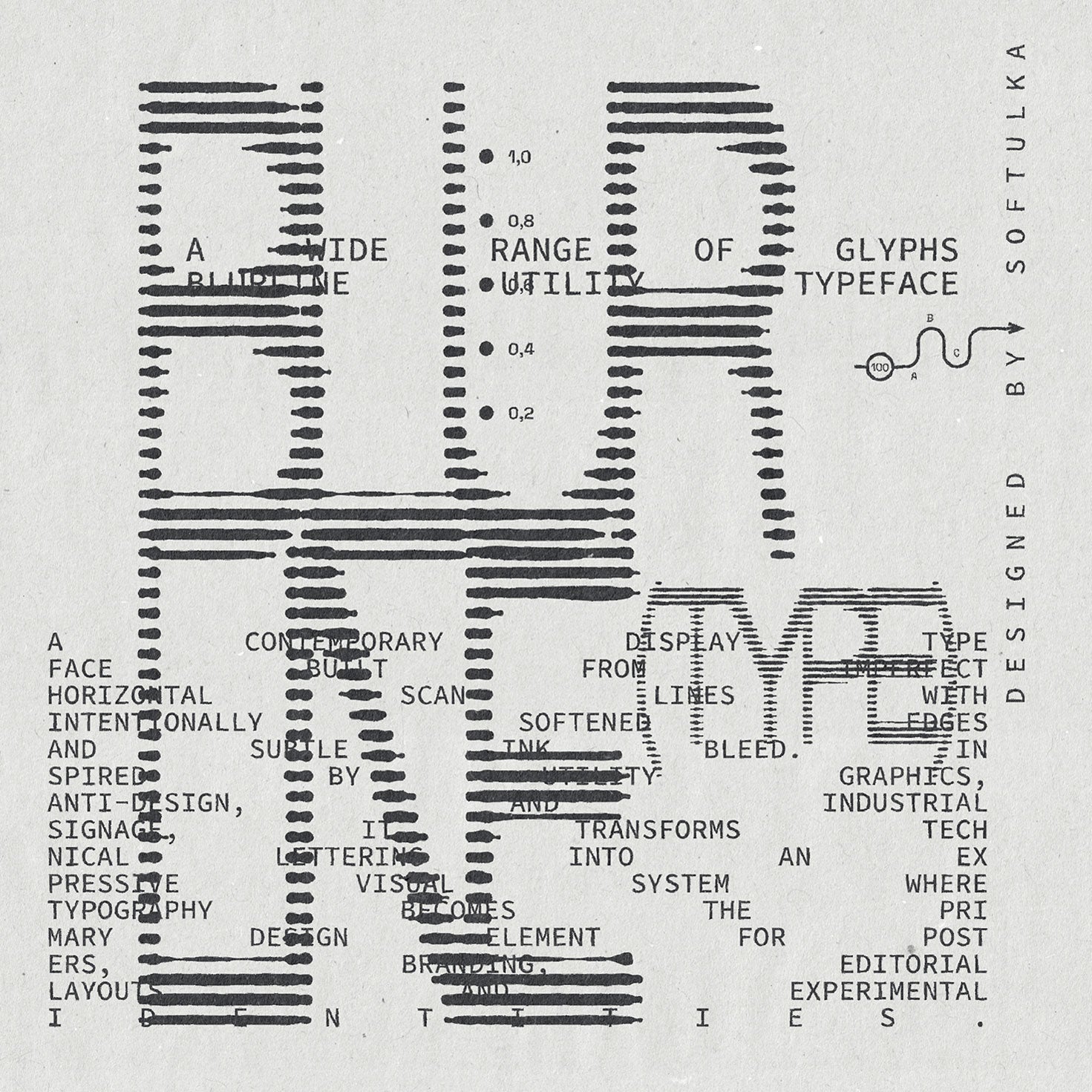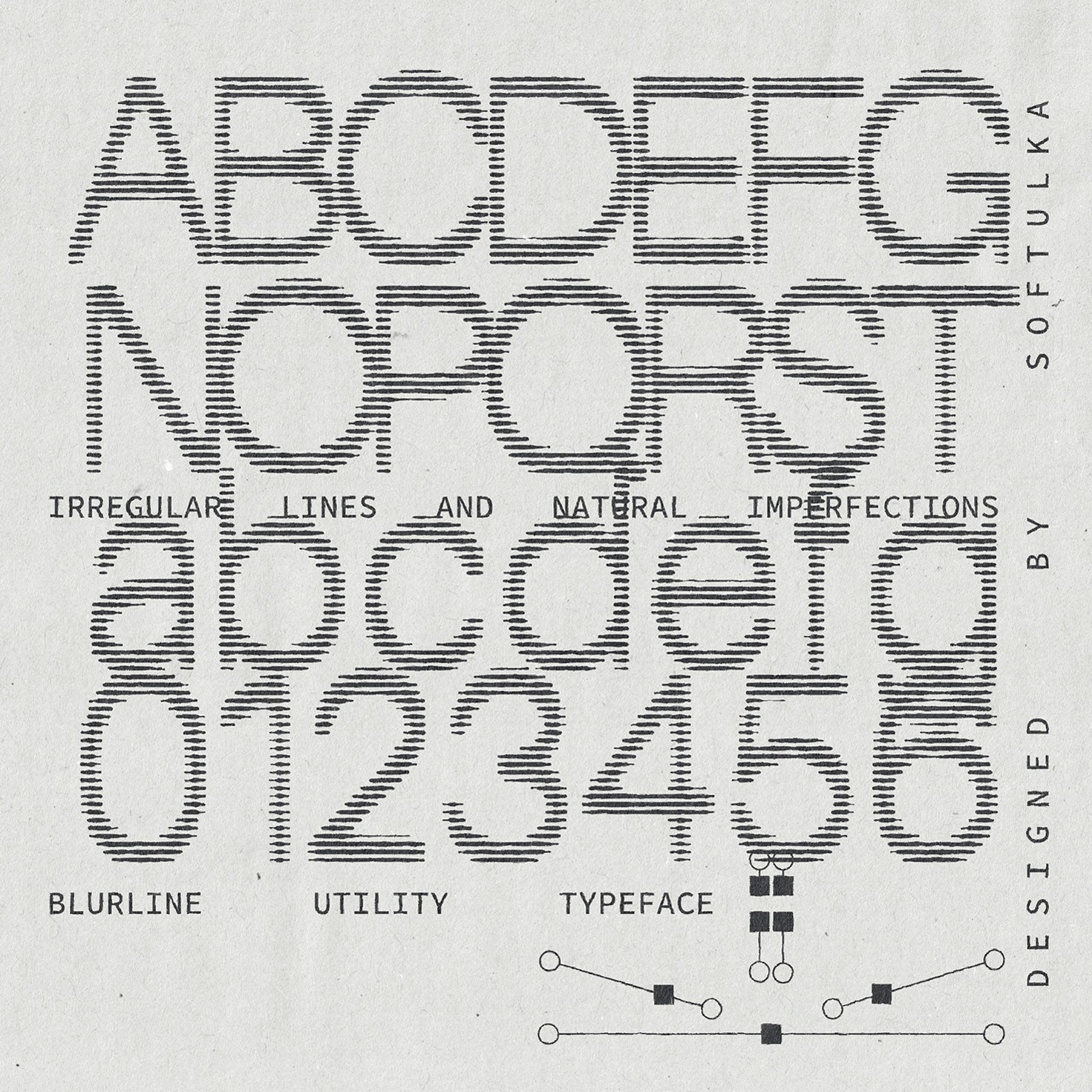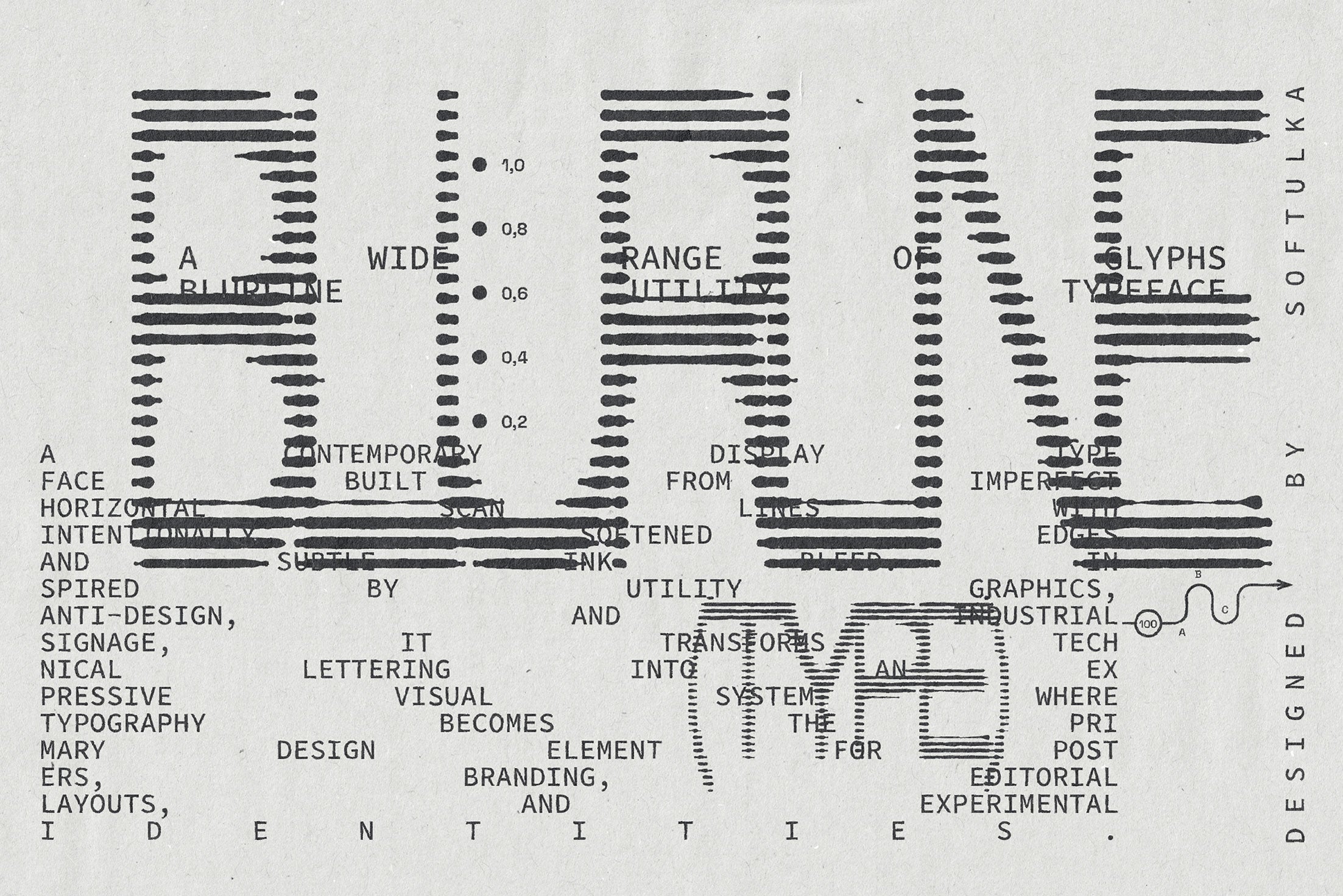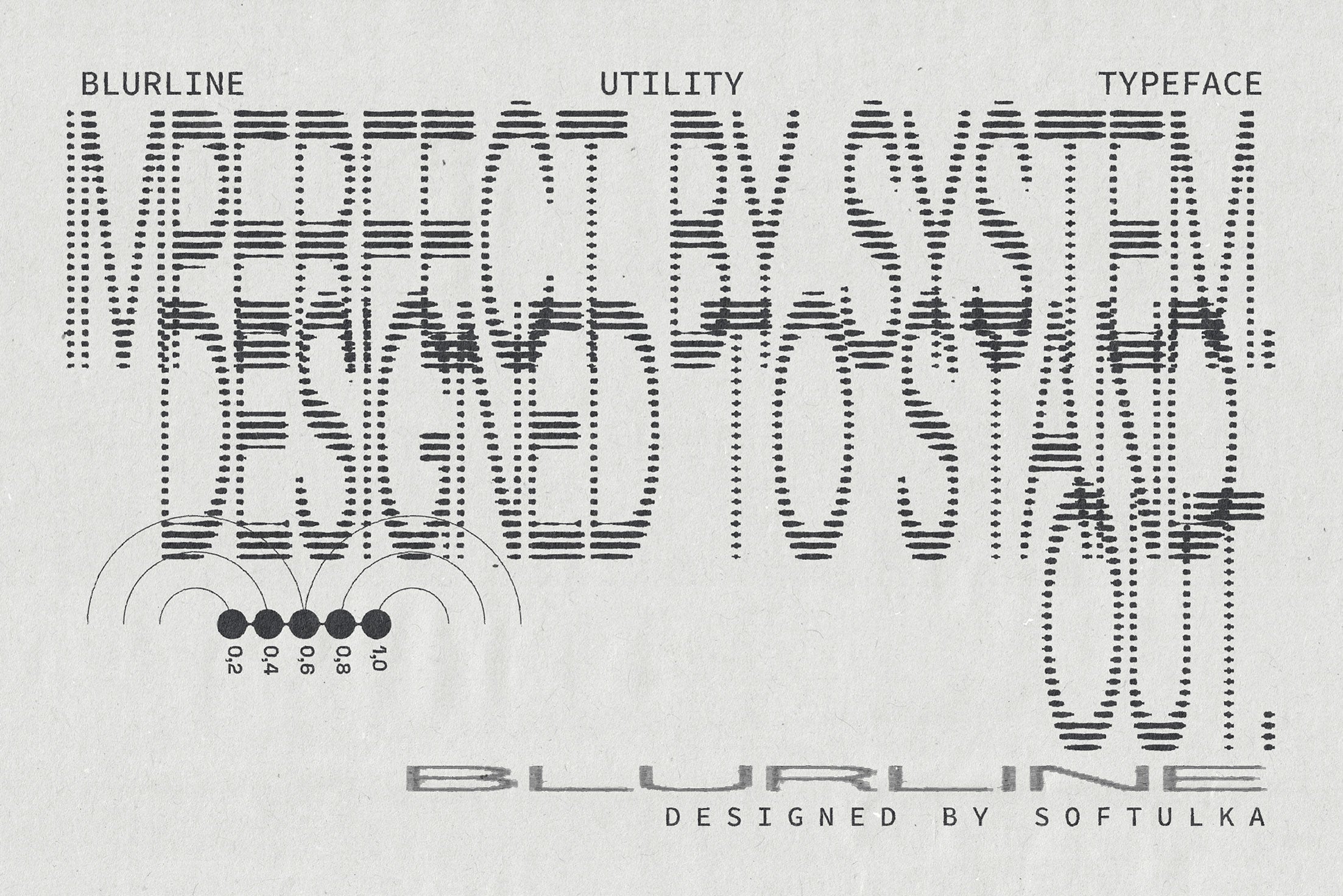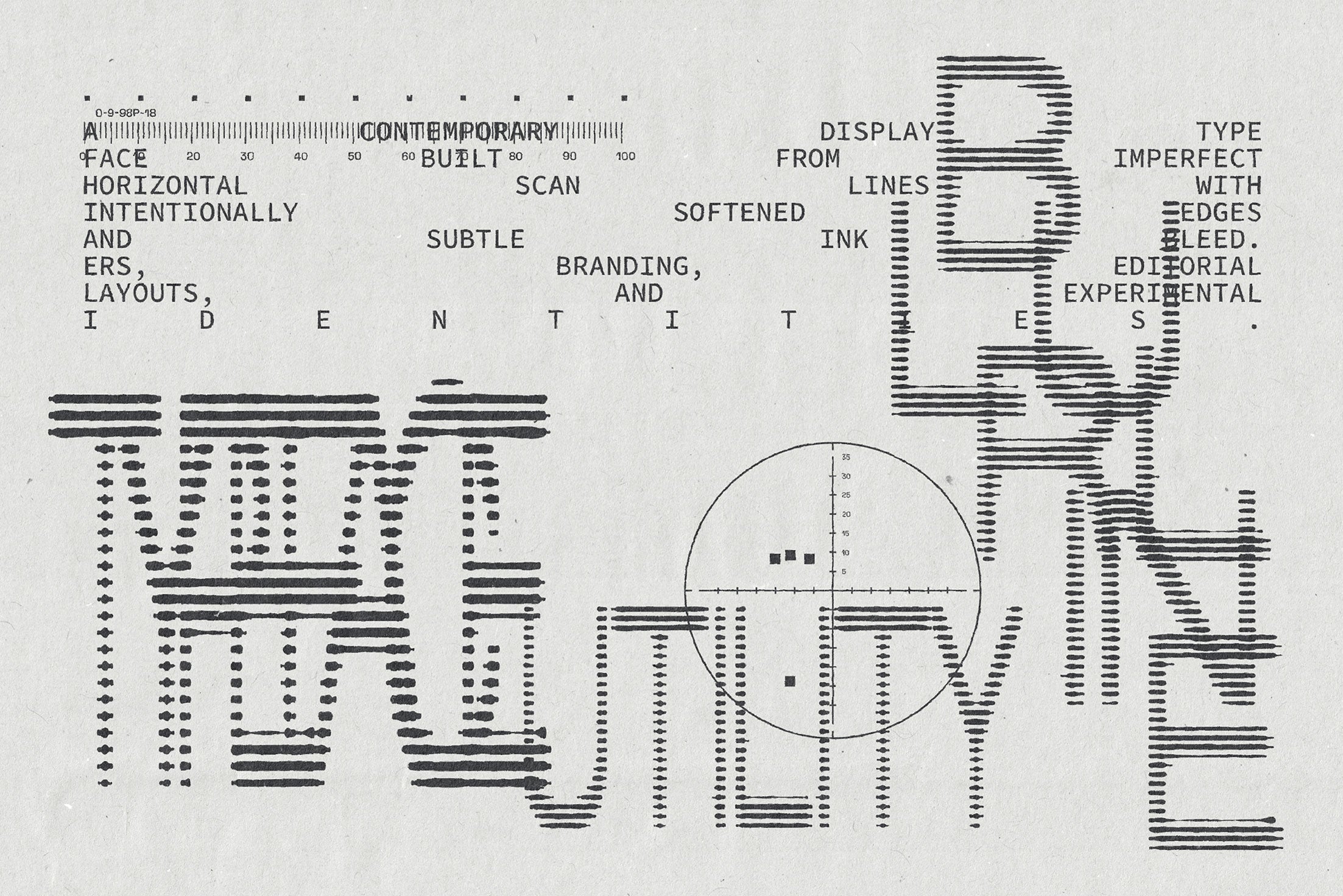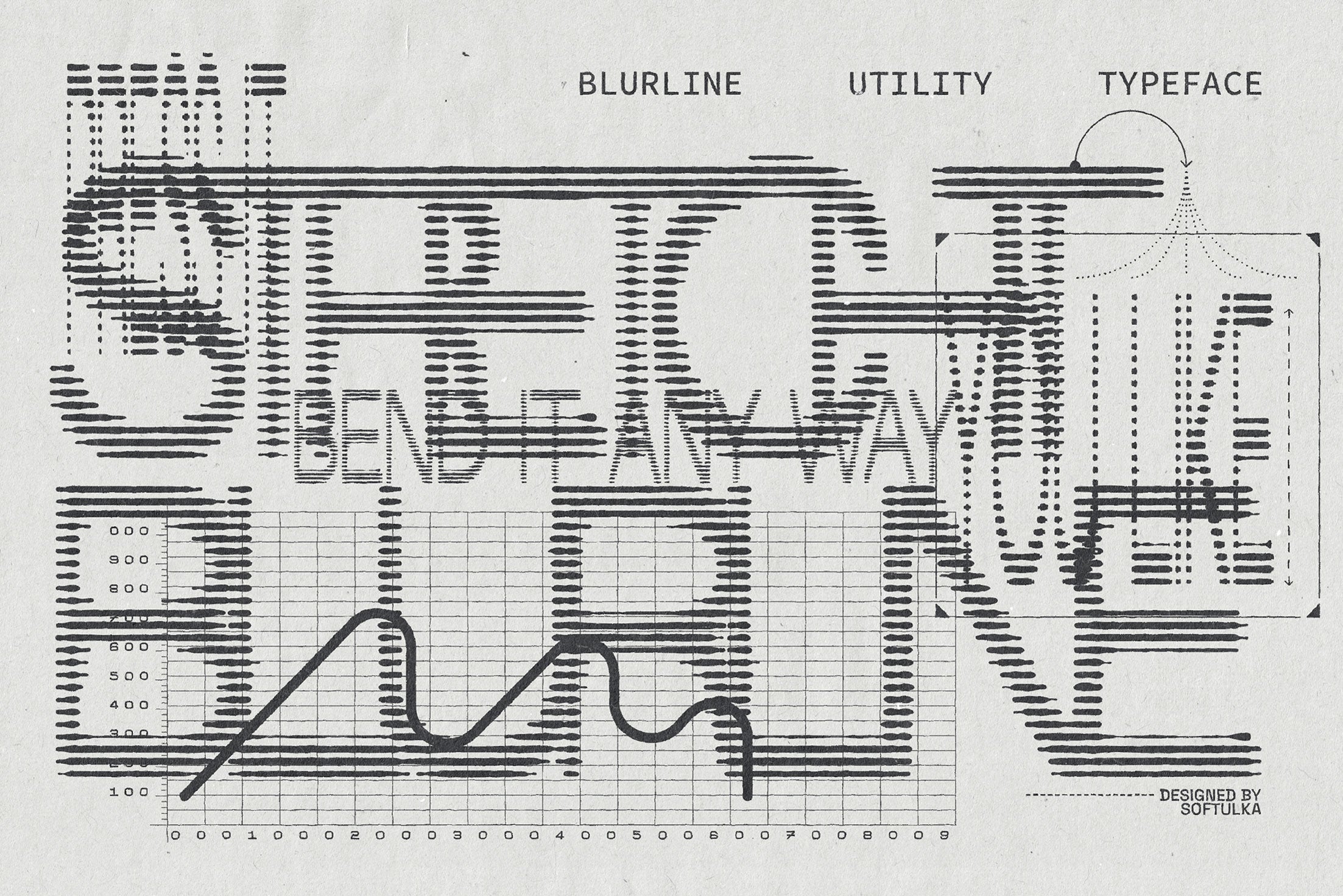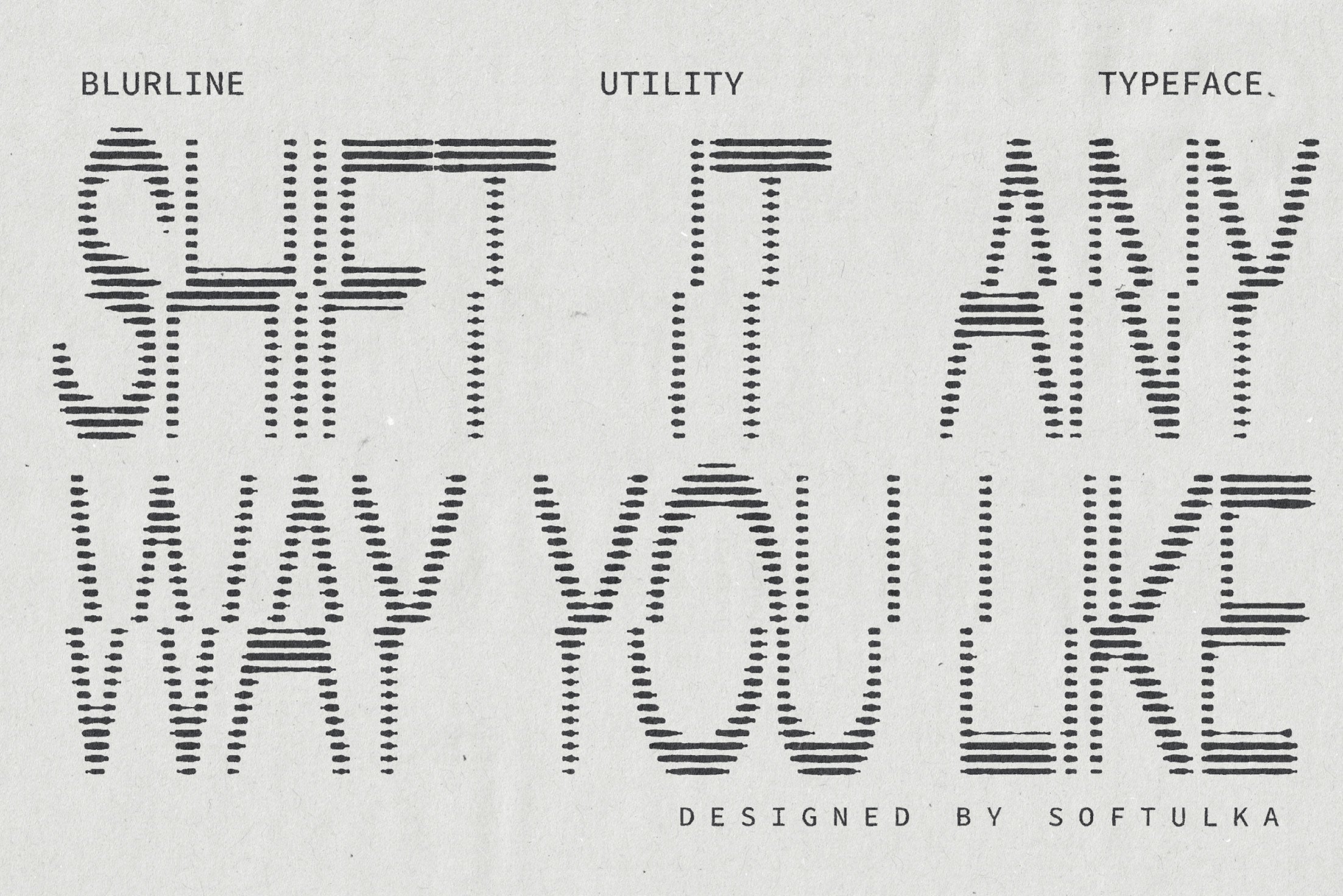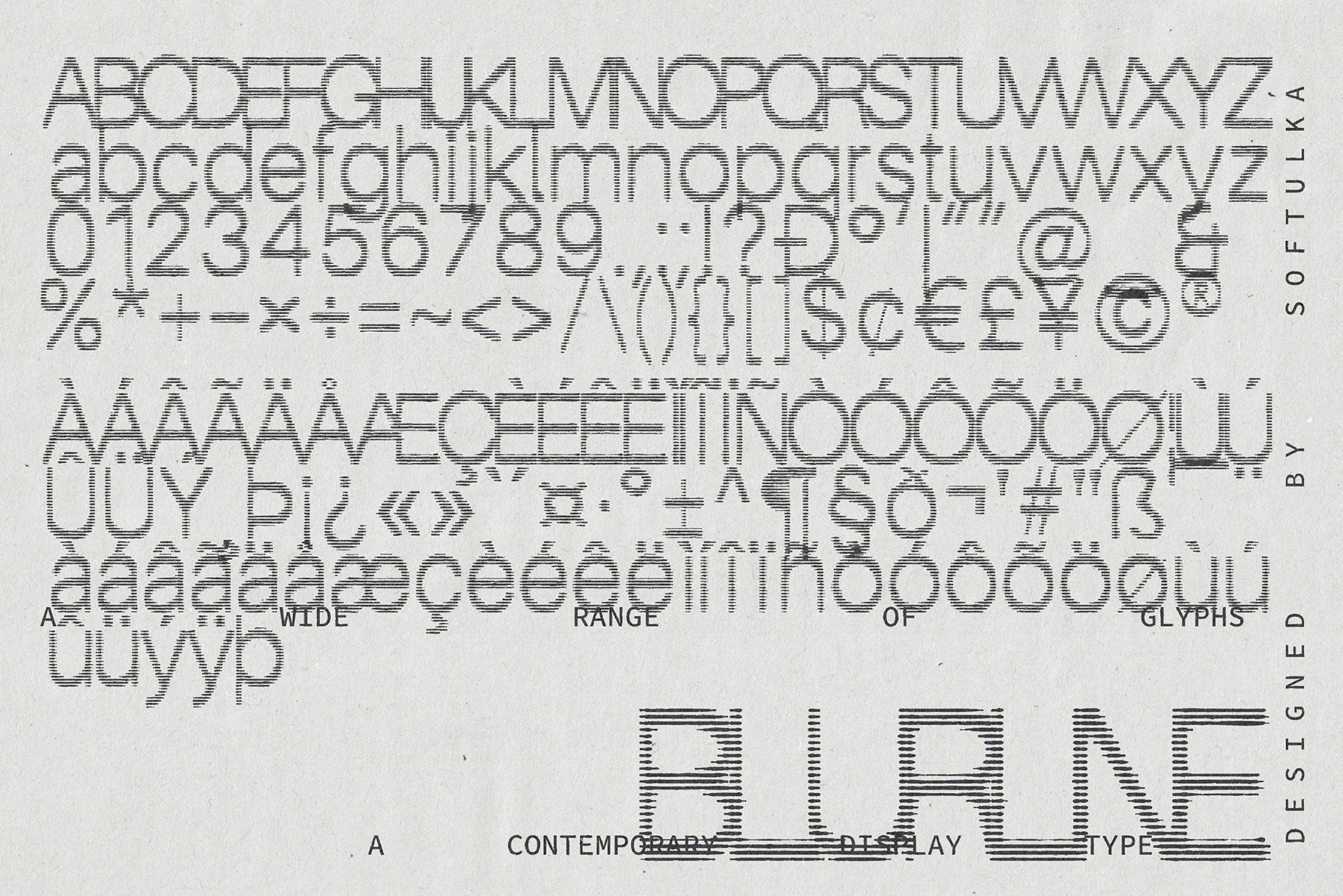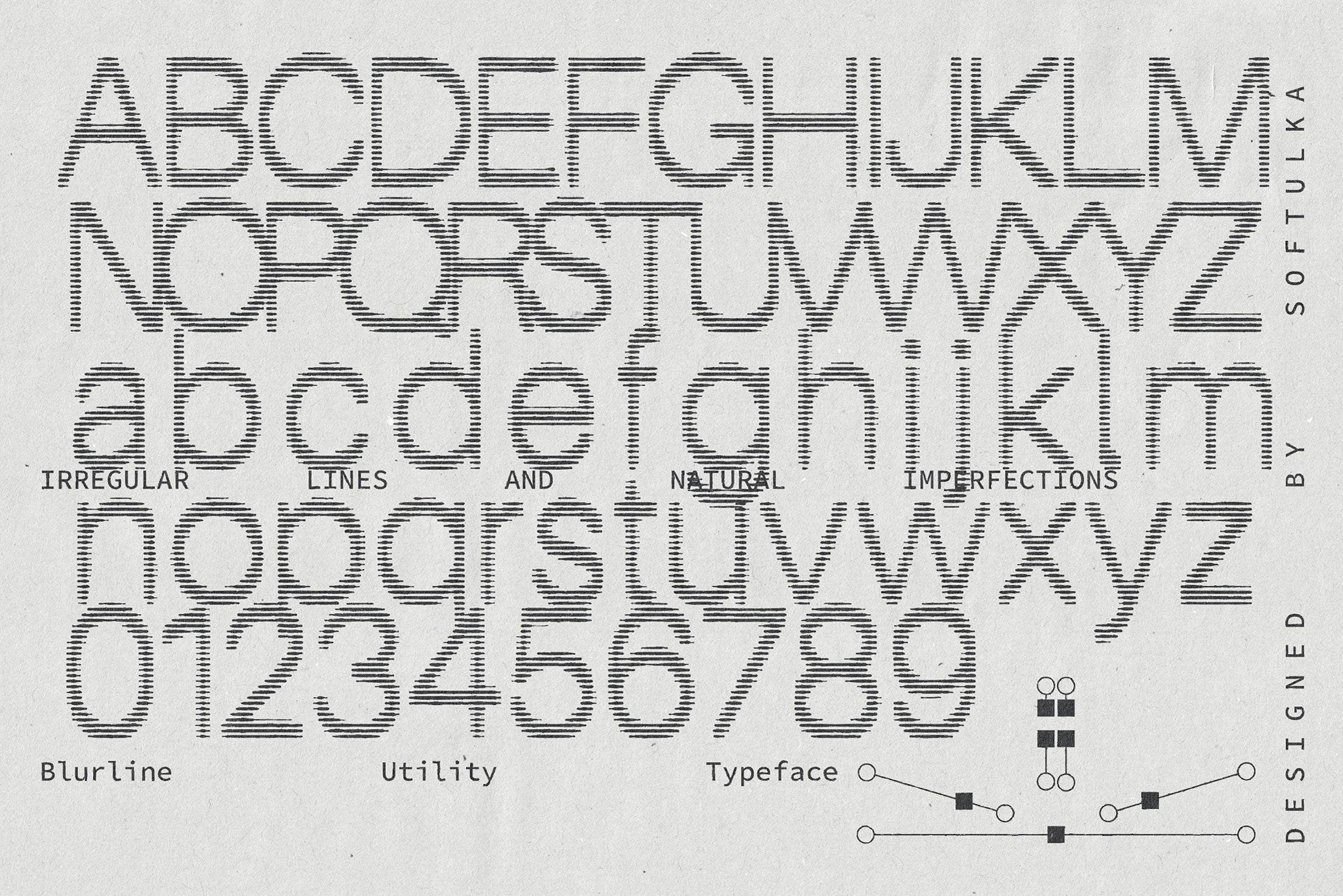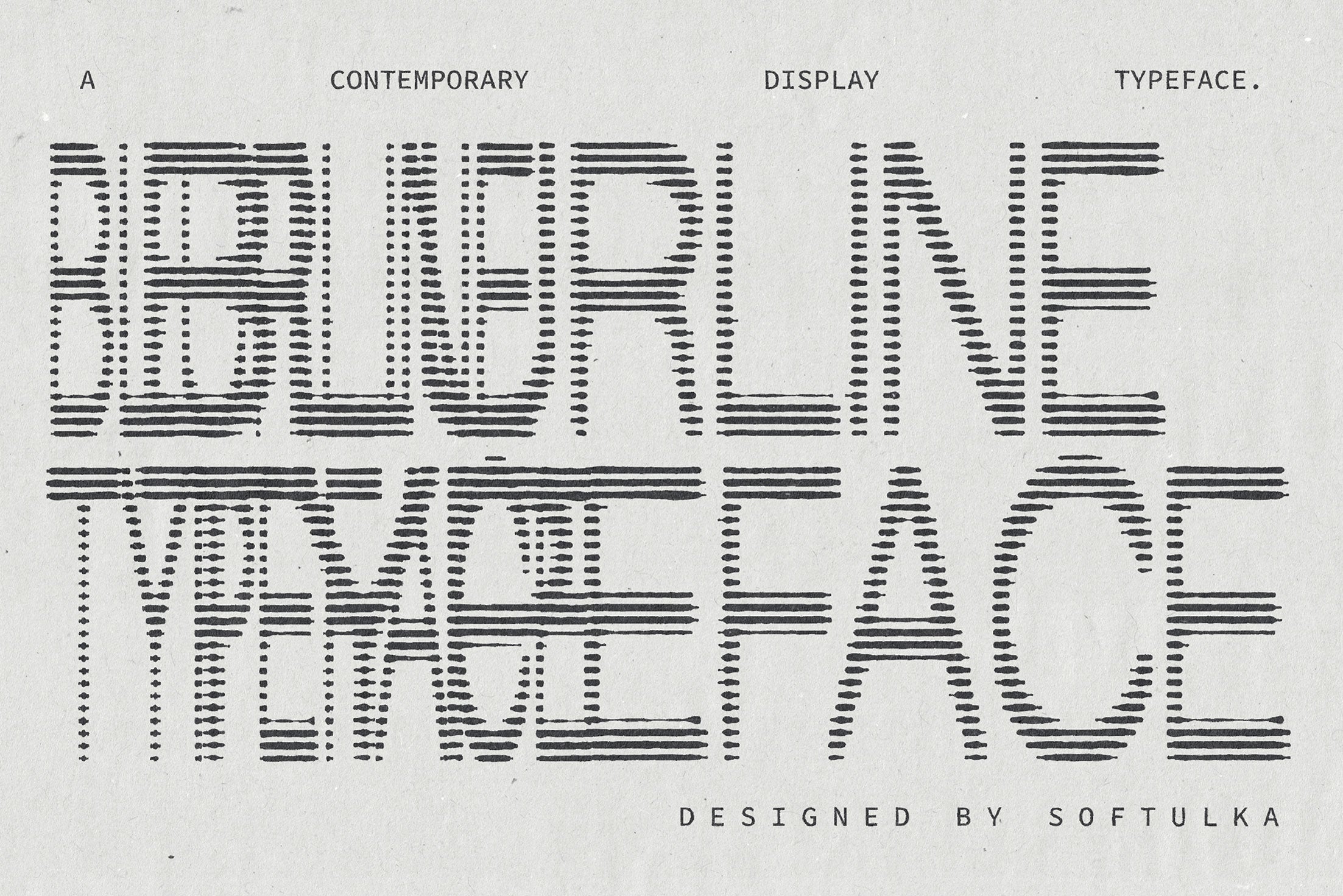
Blurline Utility Typeface
Softulka
A contemporary display typeface built from imperfect horizontal scan lines with intentionally softened edges and subtle ink bleed. Inspired by utility graphics, anti-design, and industrial signage, it transforms technical lettering into an expressive visual system where typography becomes the primary design element for posters, branding, editorial layouts, and experimental identities.
The Blurline Utility Typeface is a contemporary display typeface featuring imperfect horizontal scan lines and softened edges, designed with inspiration from utility graphics and industrial signage. It includes 1 OTF file, 1 TTF file, 1 WOFF (WebFont) file, and a PDF preview.